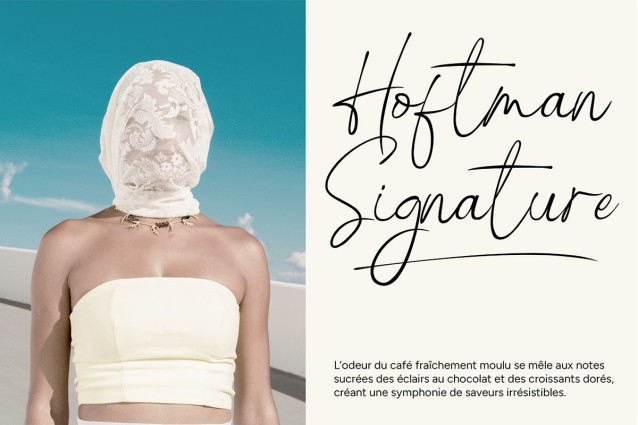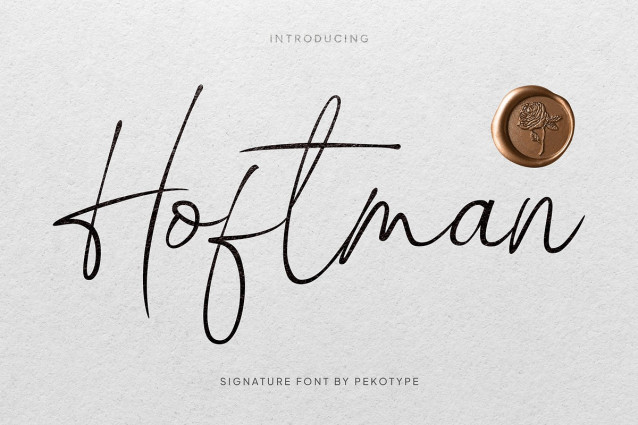
Hoftman Script Font
Hoftman Script Font is a modern signature handwriting font designed to bring elegance and authenticity to your creative projects. With its fluid strokes and natural penmanship, this font adds a refined personal touch to branding, logos, signatures, social media, and more.
Crafted for those who appreciate sophistication, HOFTMAN blends smooth curves with a contemporary feel, making it perfect for high-end branding, stylish packaging, and elegant invitations. Whether you’re creating a luxury logo or an eye-catching social media post, this font delivers effortless charm and professionalism.